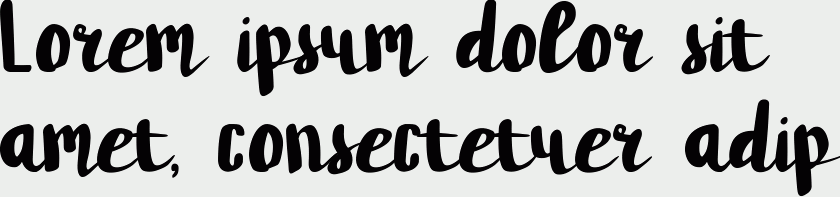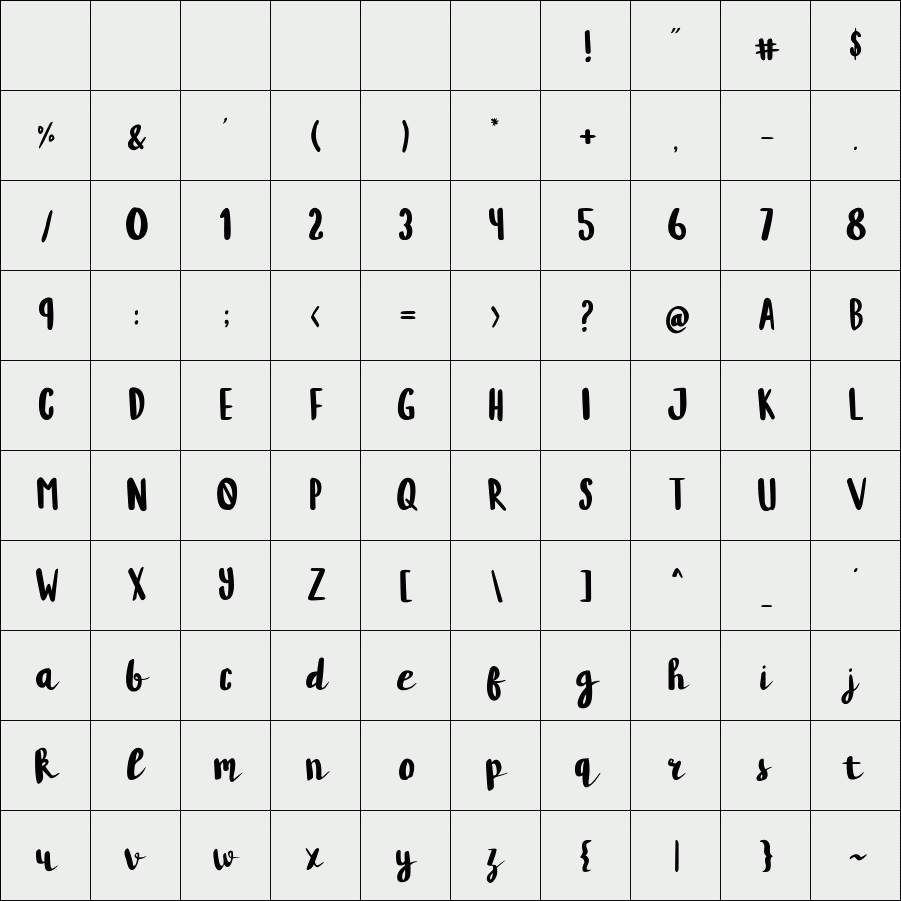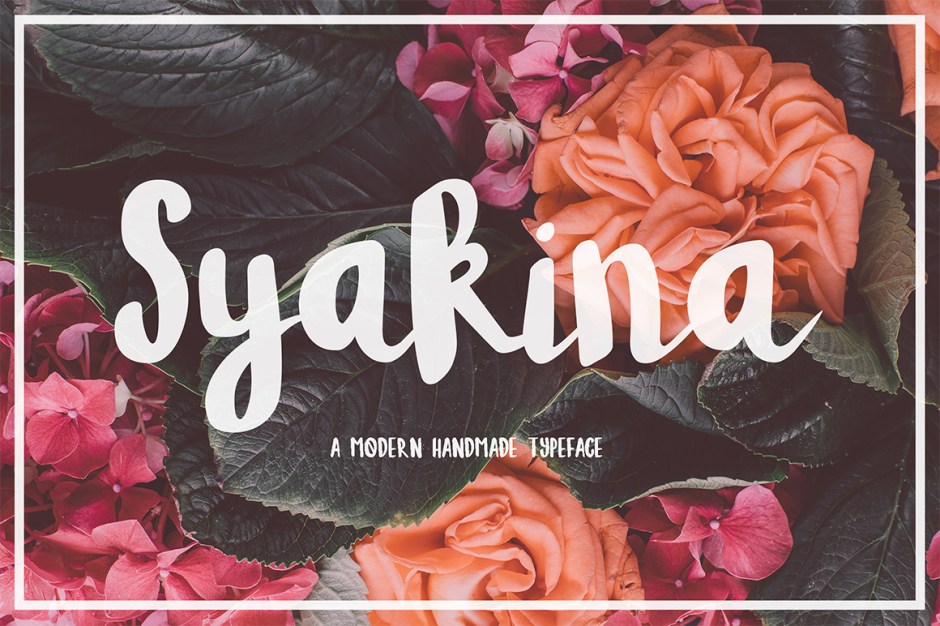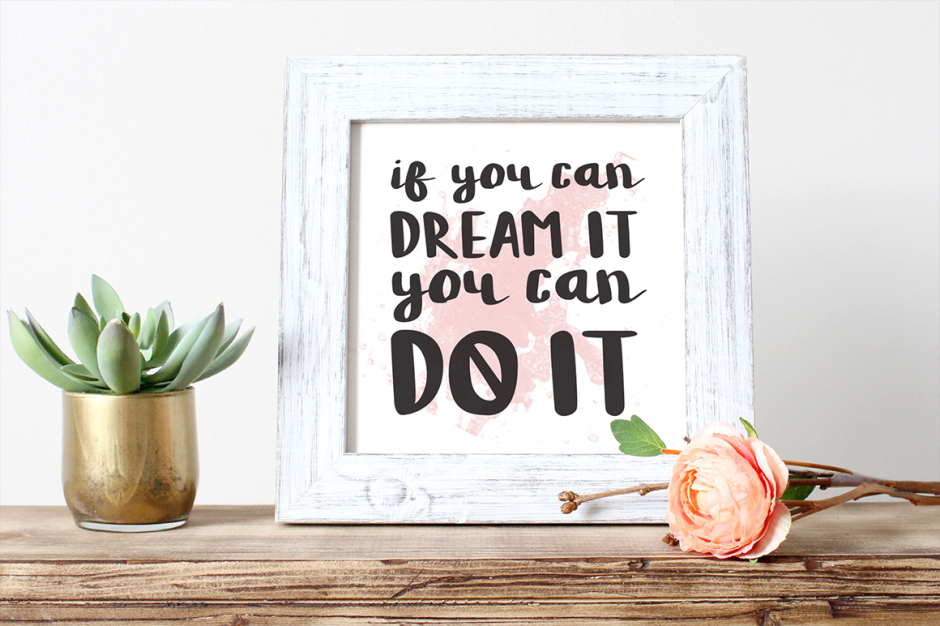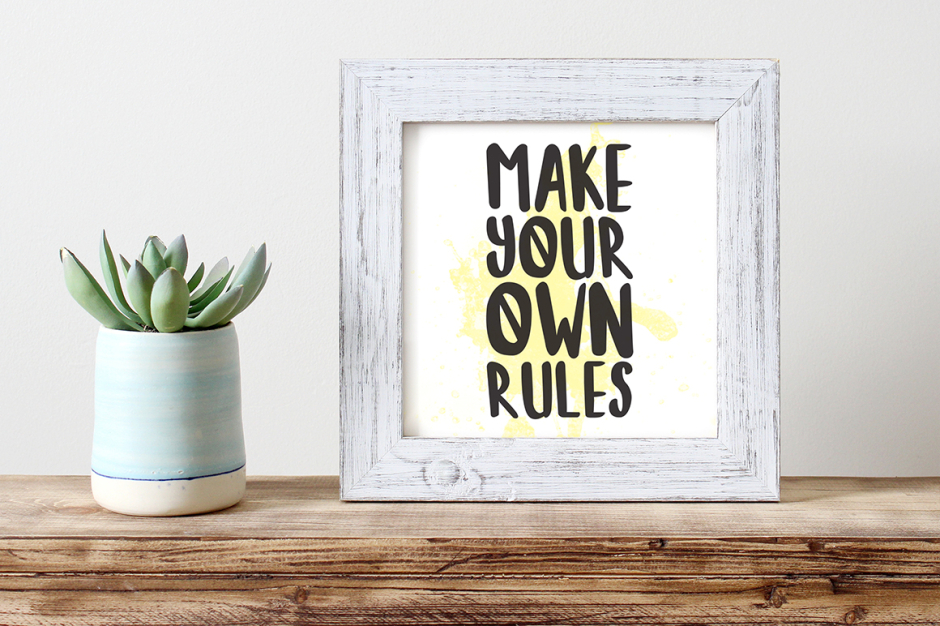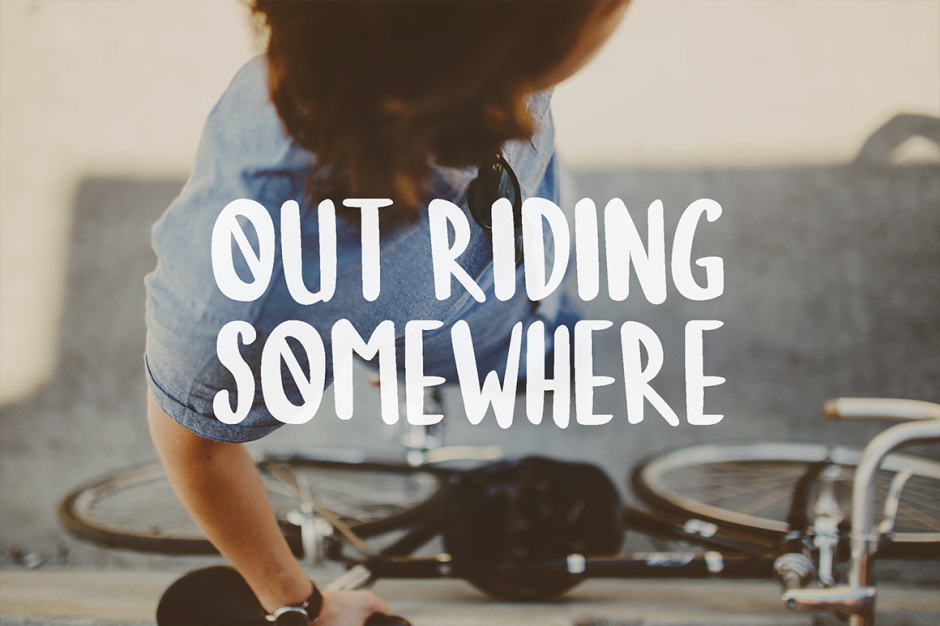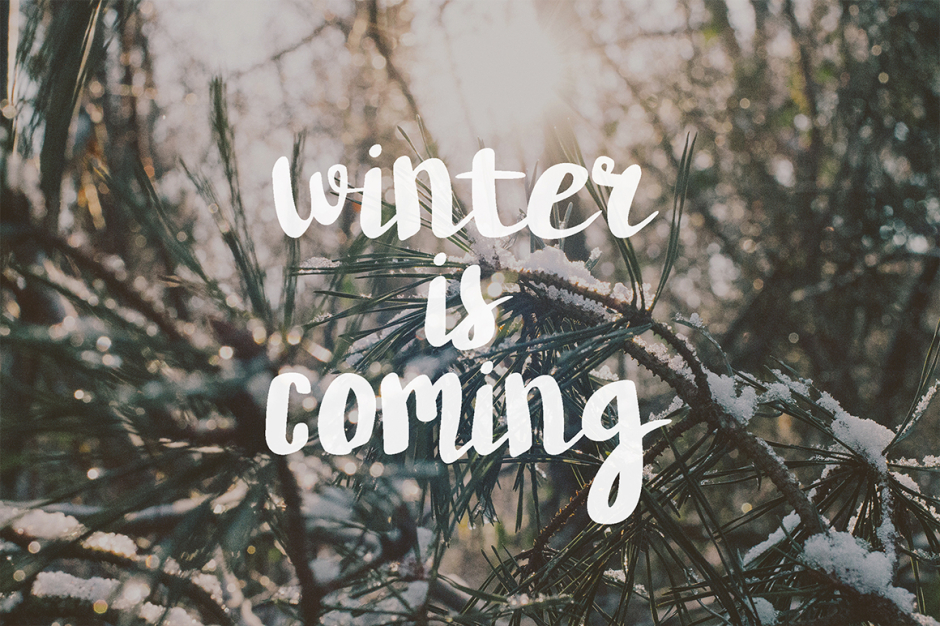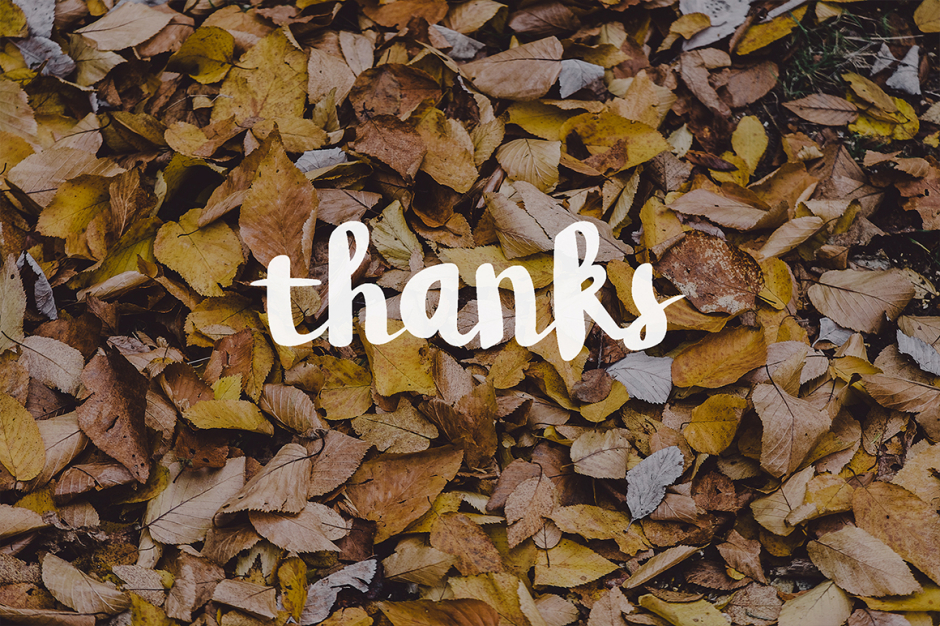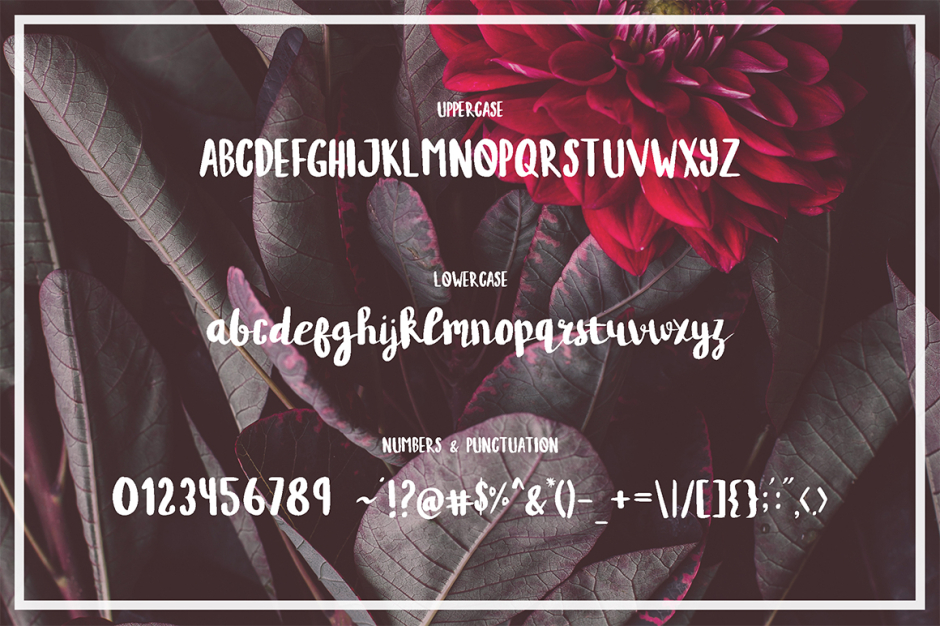
Syakina
Syakina is a modern and multi purpose handmade typeface. Can be used for many creative project like card design, headline, poster, logos, wedding invitation, t-shirt, letterhead, lable, news, posters, badges and much more.